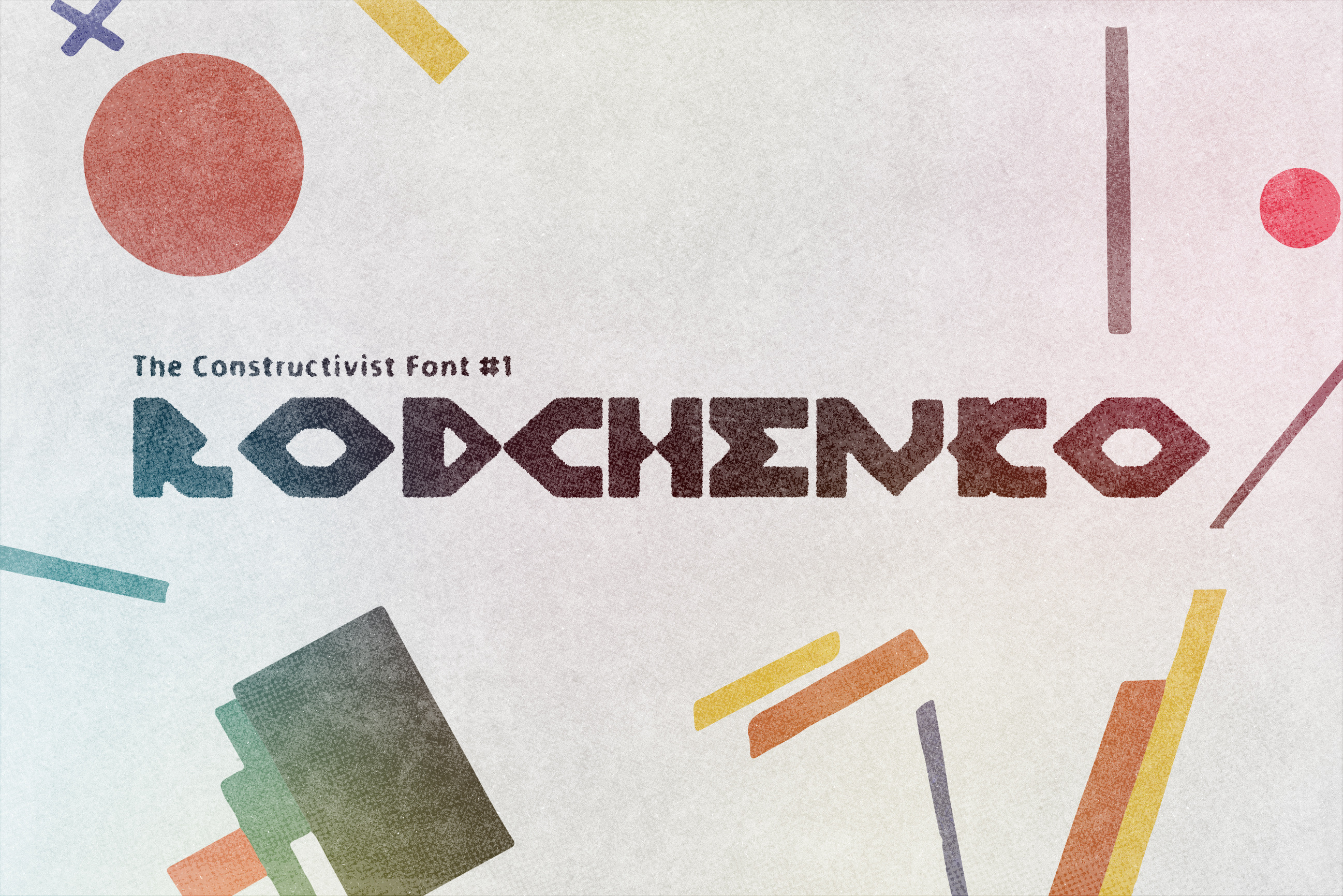
Rodchenko The Constructivist Font #1
Font #1 of The Constructivist Collection.
The font is named in honor of Alexander Rodchenko, artist, sculptor, photographer, and graphic designer. One of the founders of Constructivism. For his contemporaries, Rodchenko's radical art was full of utopian possibility. It marked the end of easel painting – perhaps even the end of art – along with the end of old norms and practices. It cleared the way for the beginning of a new life, a new mode of production, a new culture. Rodchenko later proclaimed, "I reduced painting to its logical conclusion and exhibited three canvases: red, blue, and yellow. I affirmed: it's all over."